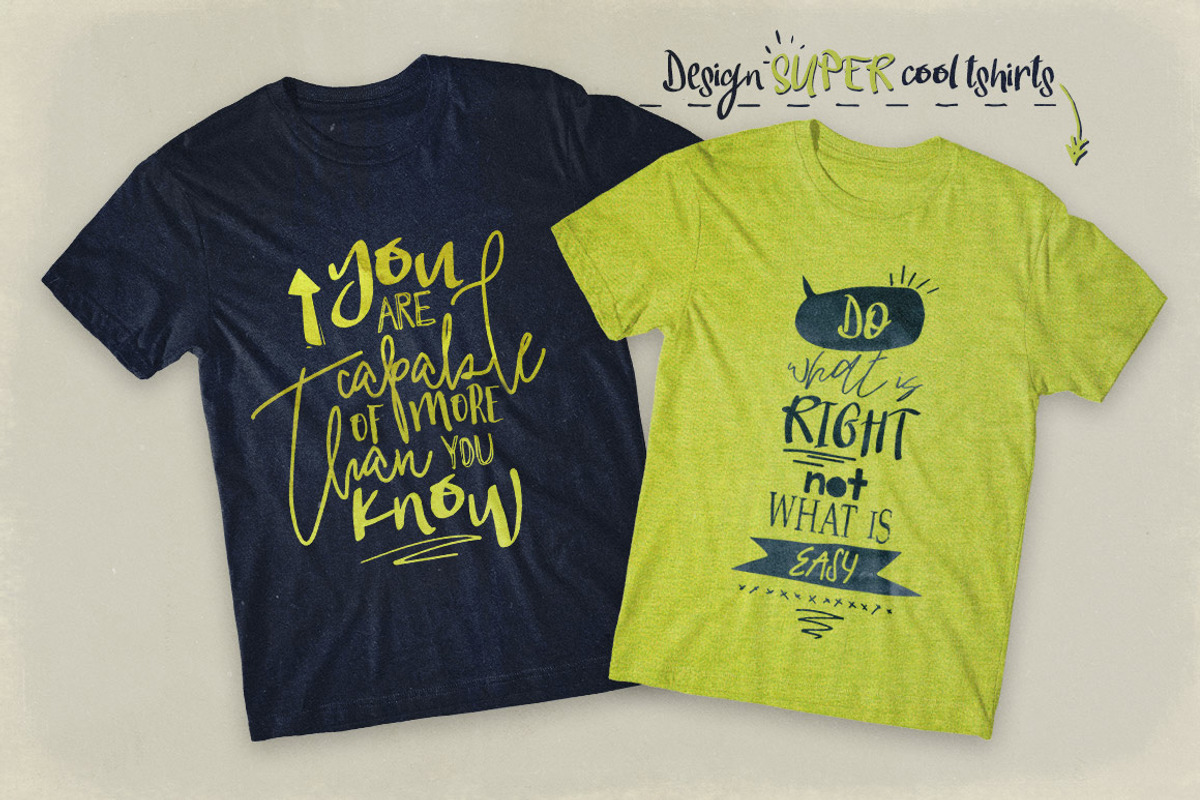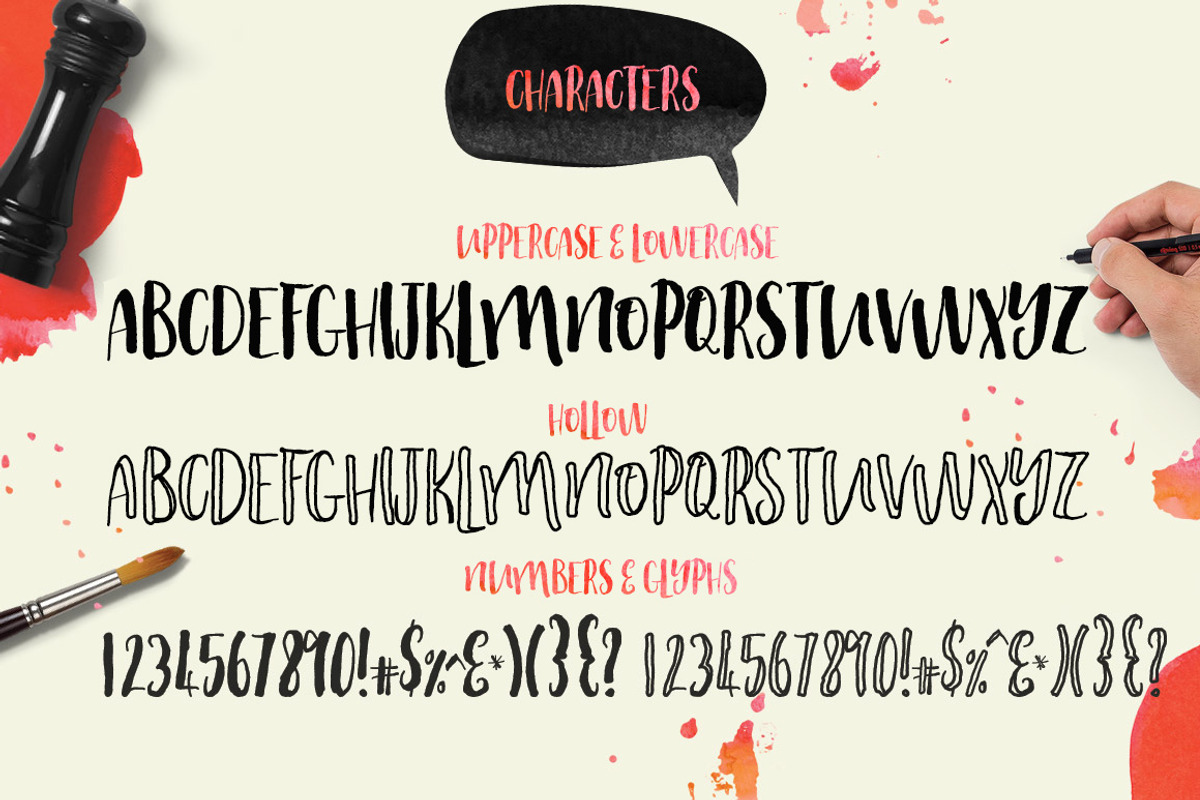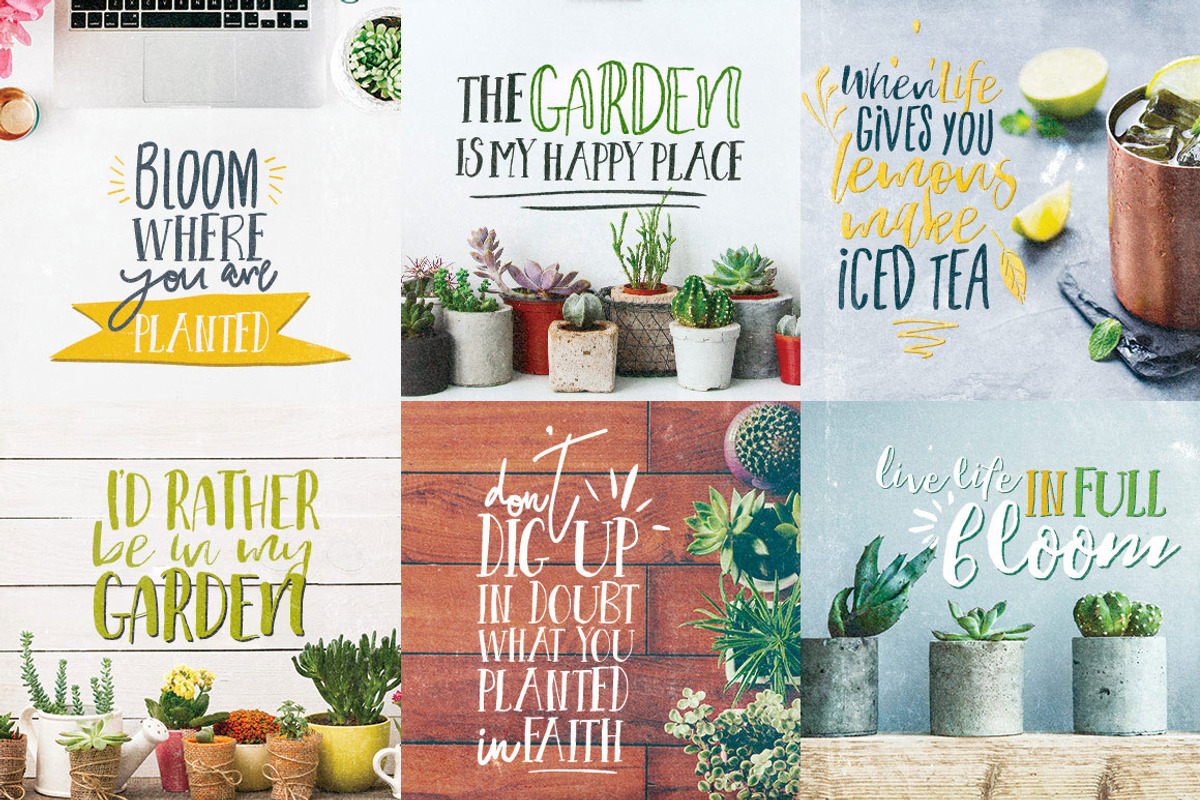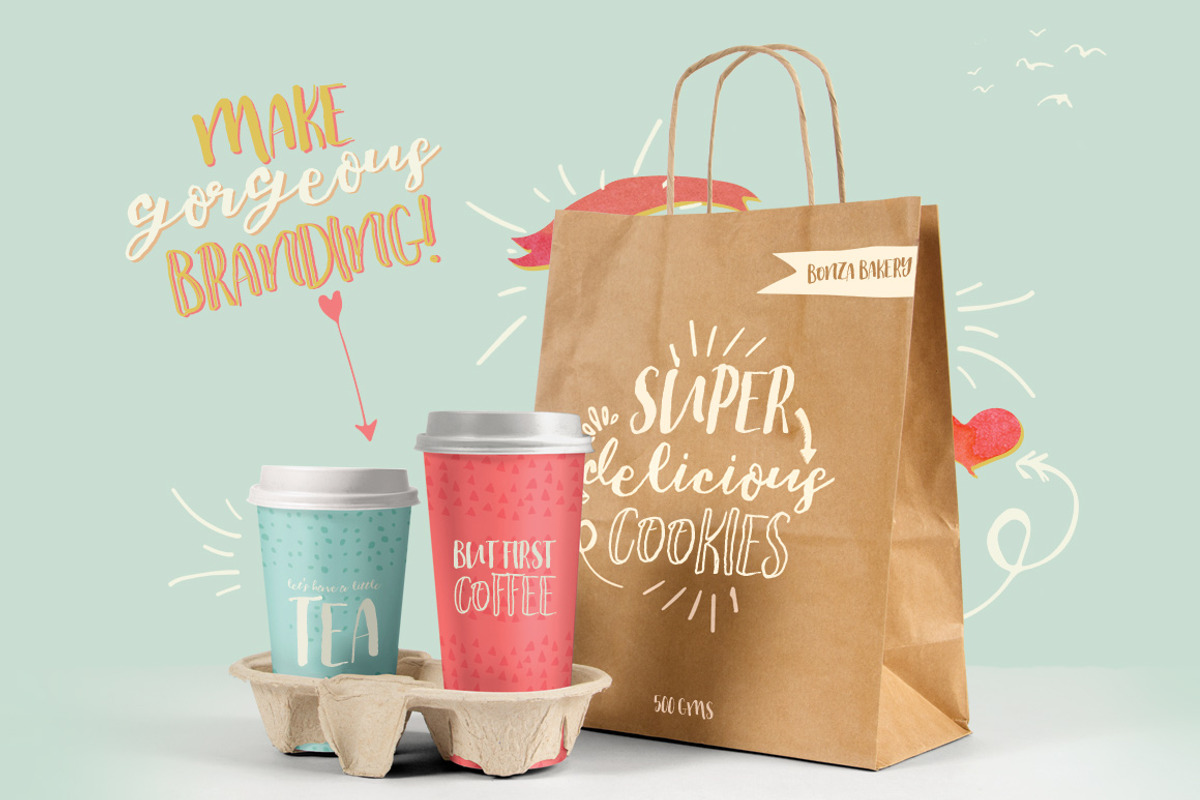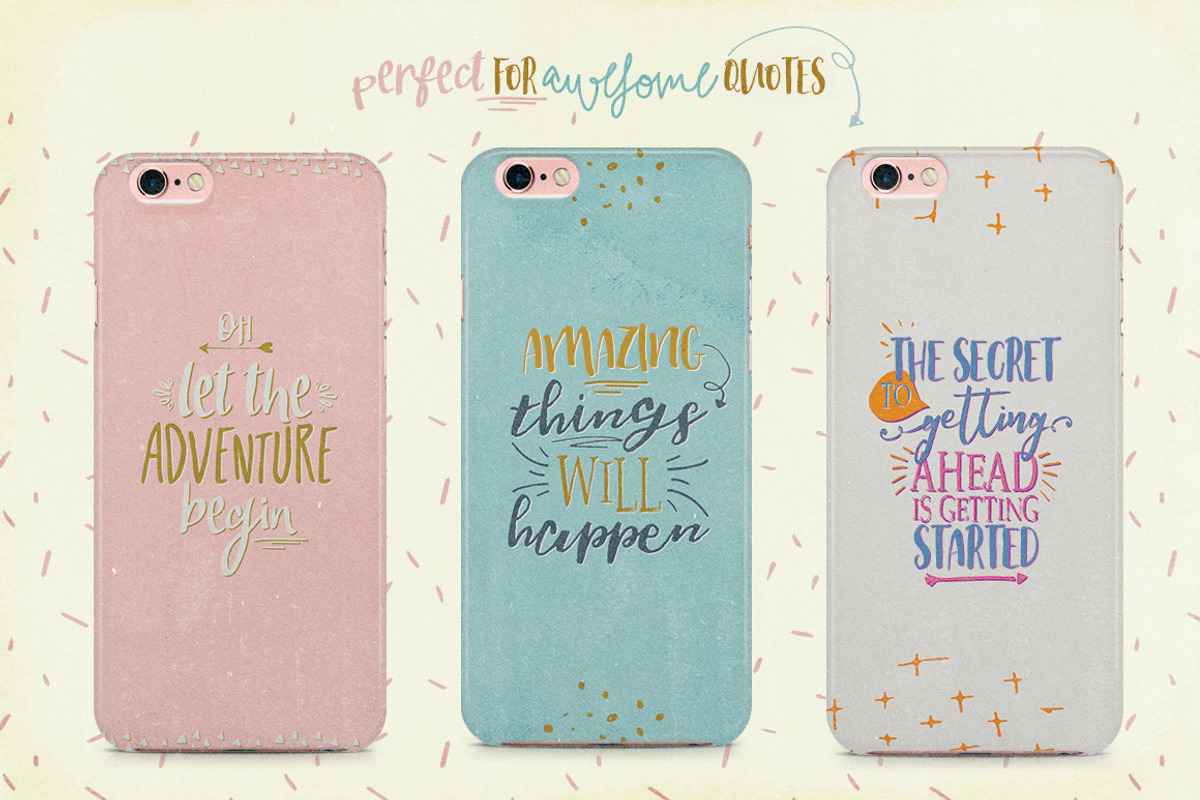
Hot Chips Font Typeface
Hot Chips Font Typeface by Creativeqube Design is a font selected for branding, posters, packaging, typography.
- Includes the outline version as well.
- Hot Chips Regular
- Hot Chips Hollow Regular
Hot Chips Font Typeface by Creativeqube Design fits naturally into Branding, posters, packaging, typography.